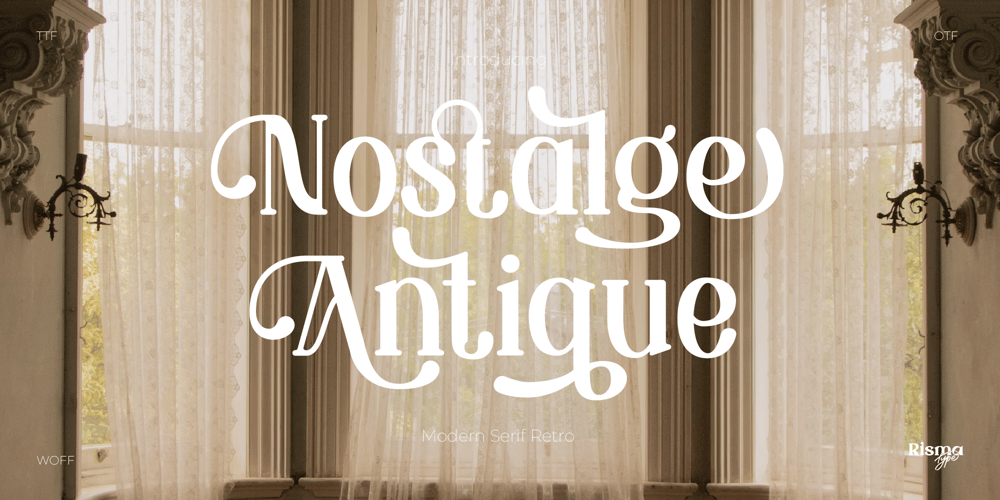
Nostalge Antique Font Family was designed by Risma Mulyasari and published by Risma Type. Nostalge Antique contains 2 styles and family package options. Nostalge Antique – Modern Serif Retro Font, from Rismatype. Suitable for any projects such as: logos, branding projects, homeware designs, product packaging, mugs, quotes, posters, shopping bags, t-shirts, book covers, name cards, invitation cards, greeting cards, labels, photography, watermarks, special events, and all your other luxury and beautiful projects that need a touch of retro elegance.